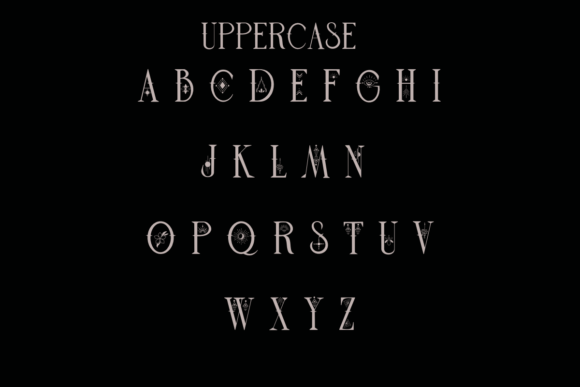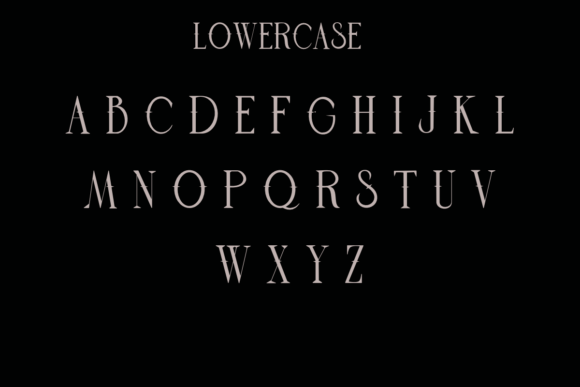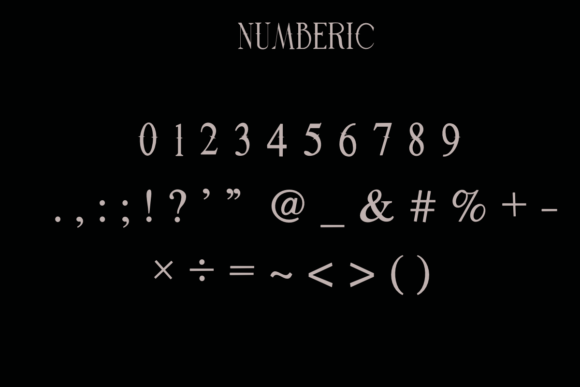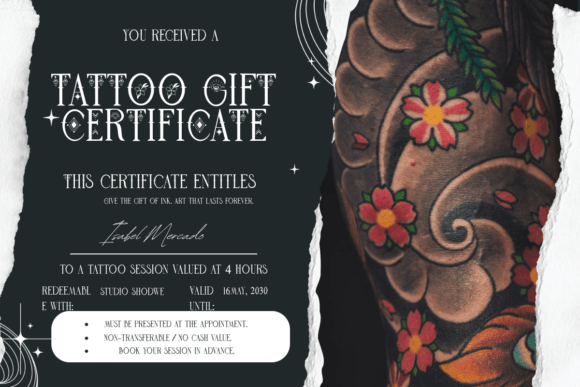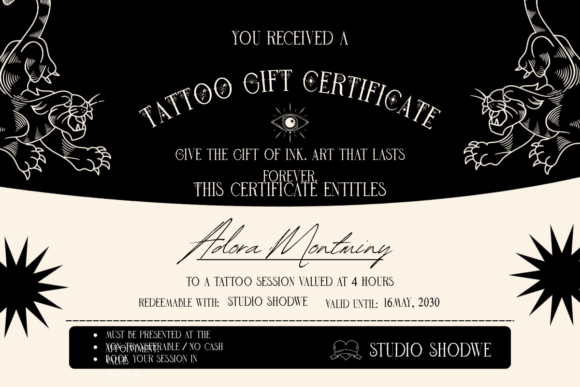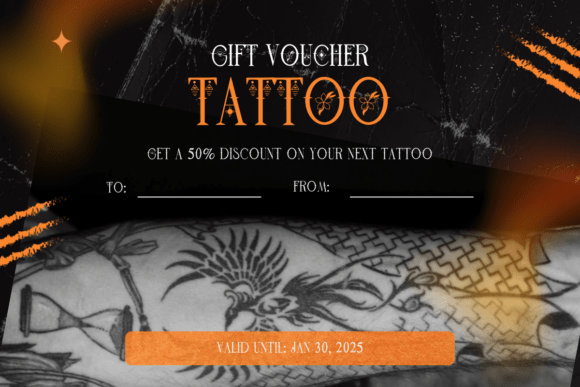
Unlocking the Mystique of Boho Tattoo Font
I’ll never forget the design moment that led me to discover Boho Tattoo Font. I was working on a tarot card layout project for a client who specialized in mystical readings. The goal was to create a design that was both elegant and spiritual, but I was struggling to find the right font to convey that vibe. That’s when I stumbled upon Boho Tattoo, and it was like a breath of fresh air. The unique blend of classical serif letterforms and hand-carved celestial symbols instantly resonated with my design sensibilities.
A Personal Review of Boho Tattoo Font
- 💫 The mesmerizing internal illustrations, such as delicate five-petal cherry blossoms and geometric sunburst triangles, add an extra layer of depth to the font.
- ✅ The high-contrast design and sharp outlines make it perfect for use against detailed patterns or dark backdrops.
- 🔥 The distinctive mid-stem spiked flair on the vertical bars gives the font a unique, eye-catching flair.
- 🌿 The font’s bohemian vibe makes it perfect for designs that require a touch of free-spirited elegance.
- 🤔 Some of the intricate illustrations within the letters can be a bit finicky to work with, especially for beginners.
- ⚠️ The font’s high-contrast design may not be suitable for very small font sizes or low-resolution images.
The creator of Boho Tattoo Font drew inspiration from various sources, including:
- The mystical and spiritual world of tarot cards and astrology.
- The intricate illustrations and patterns found in botanical art.
- The free-spirited and eclectic vibe of bohemian fashion and lifestyle.
A: Boho Tattoo Font is best used as a display font for headlines or titles. Its unique illustrations and elegant letterforms make it perfect for designs that require a touch of sophistication and whimsy.